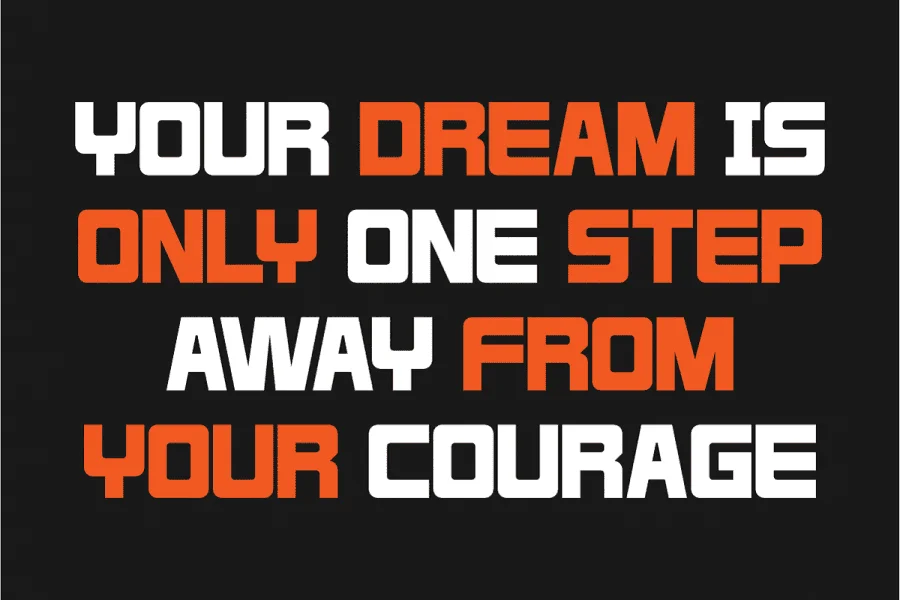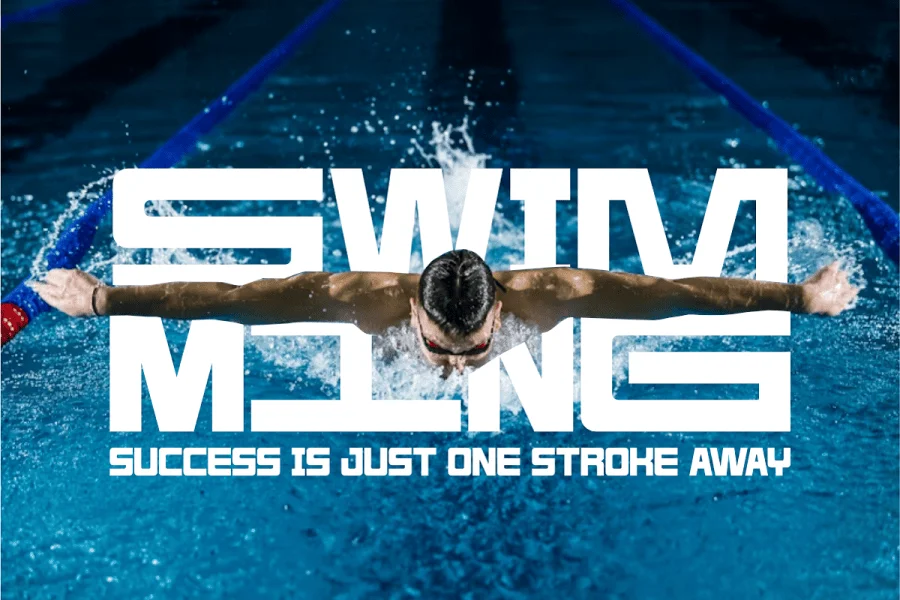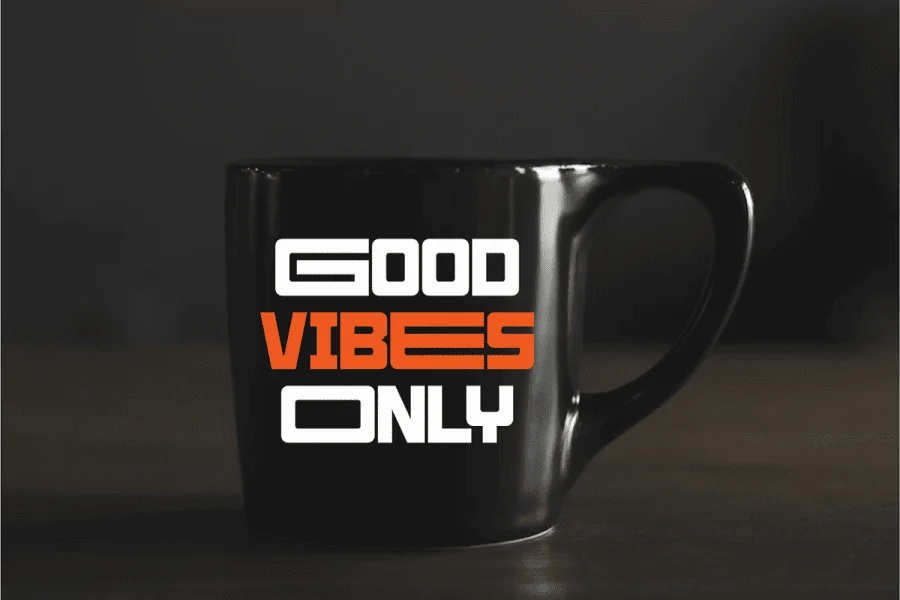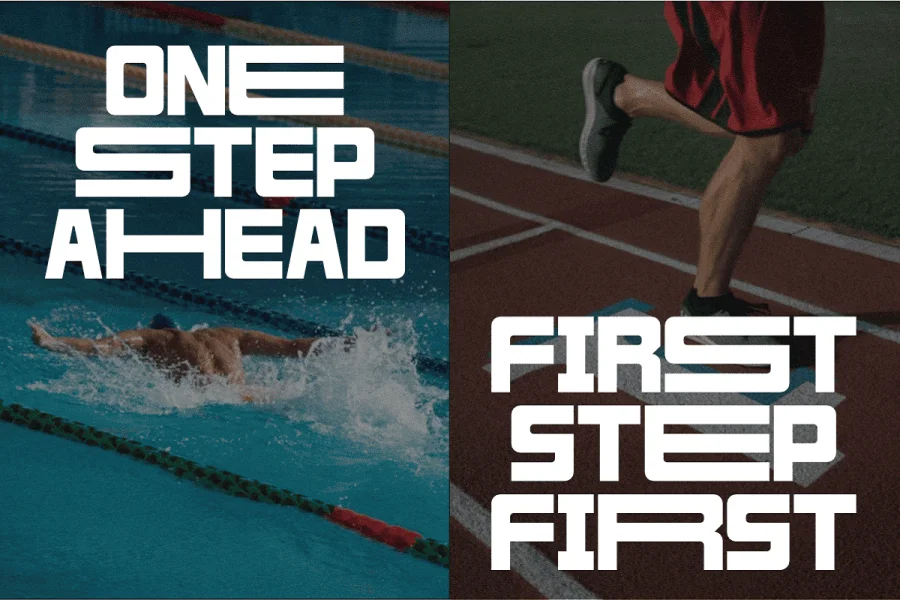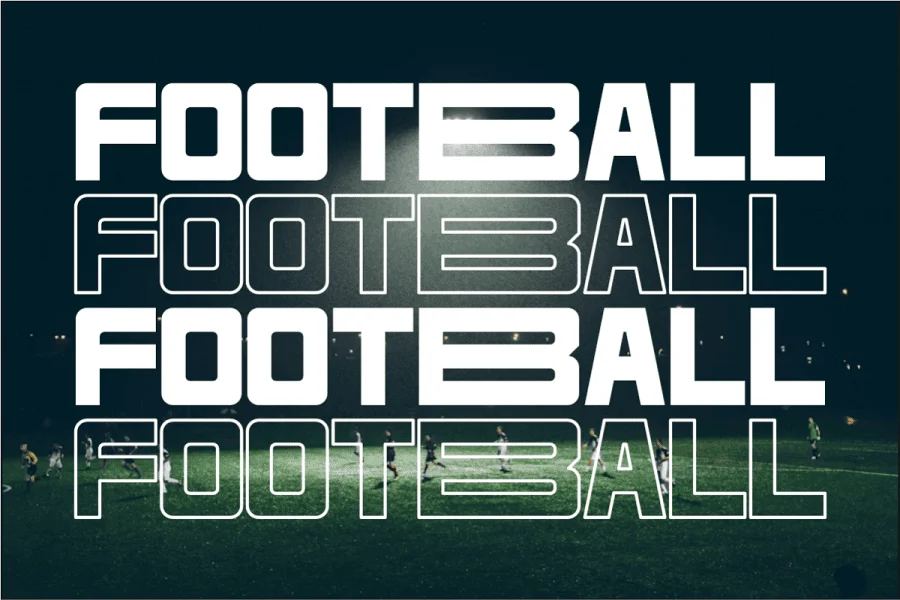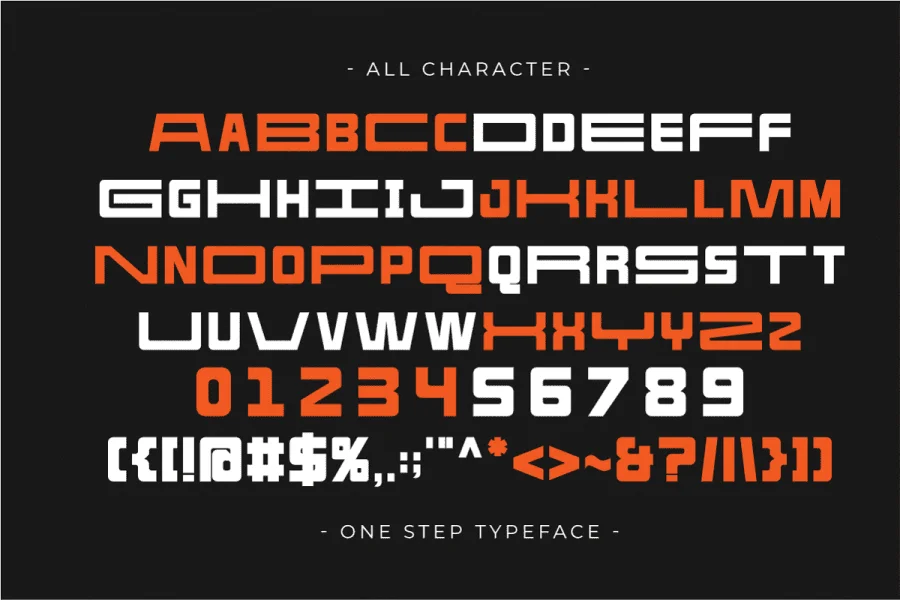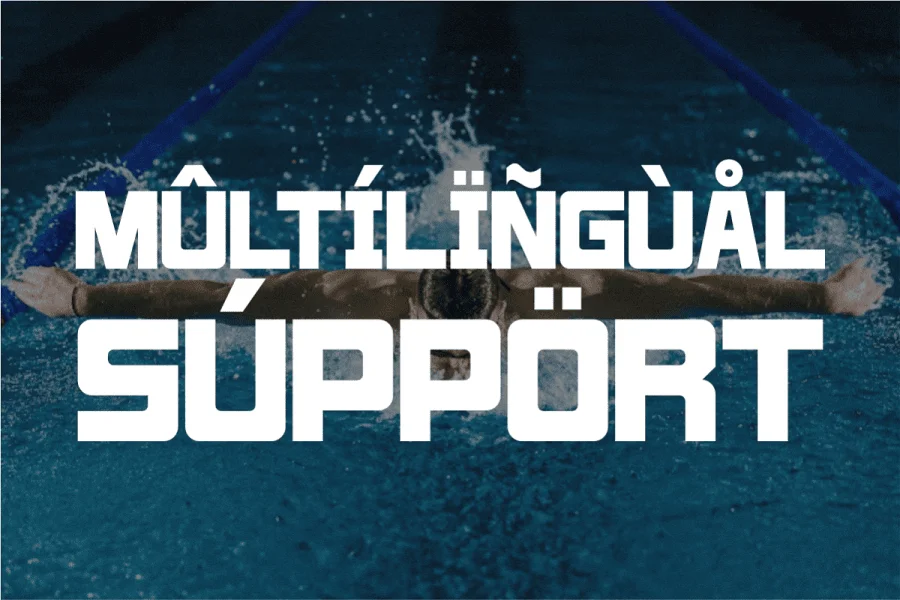
One Step is a versatile and high-impact Modern Condensed Sans Serif font designed for clarity and momentum. Featuring a clean, tall vertical structure and bold blocky characters, this all-caps typeface is engineered for minimalist branding, sports typography, urban streetwear, and professional corporate identities. Its space-saving design makes it an excellent choice for commanding headlines, social media quotes, motion graphics, and industrial-style posters that require a sophisticated yet powerful visual presence.